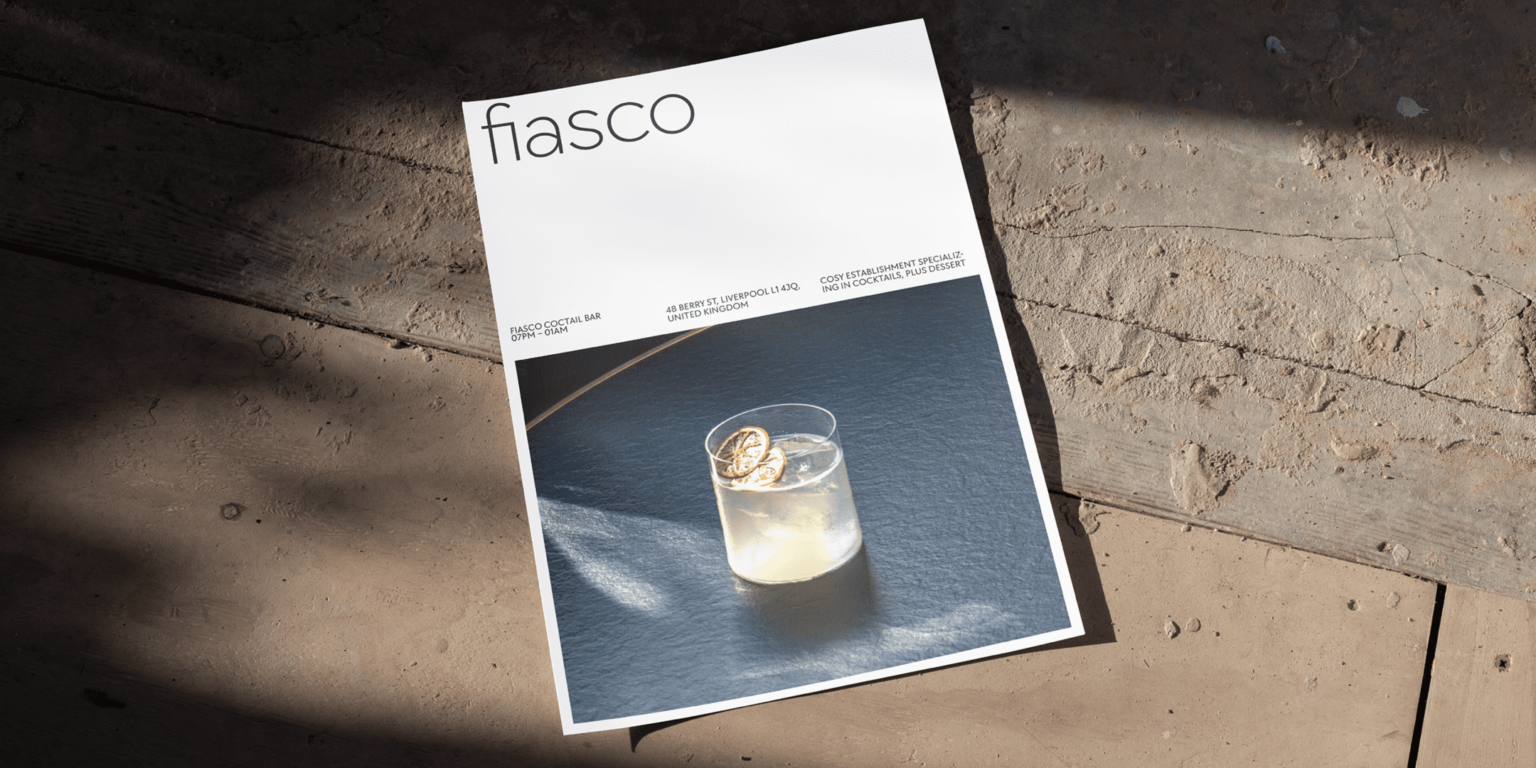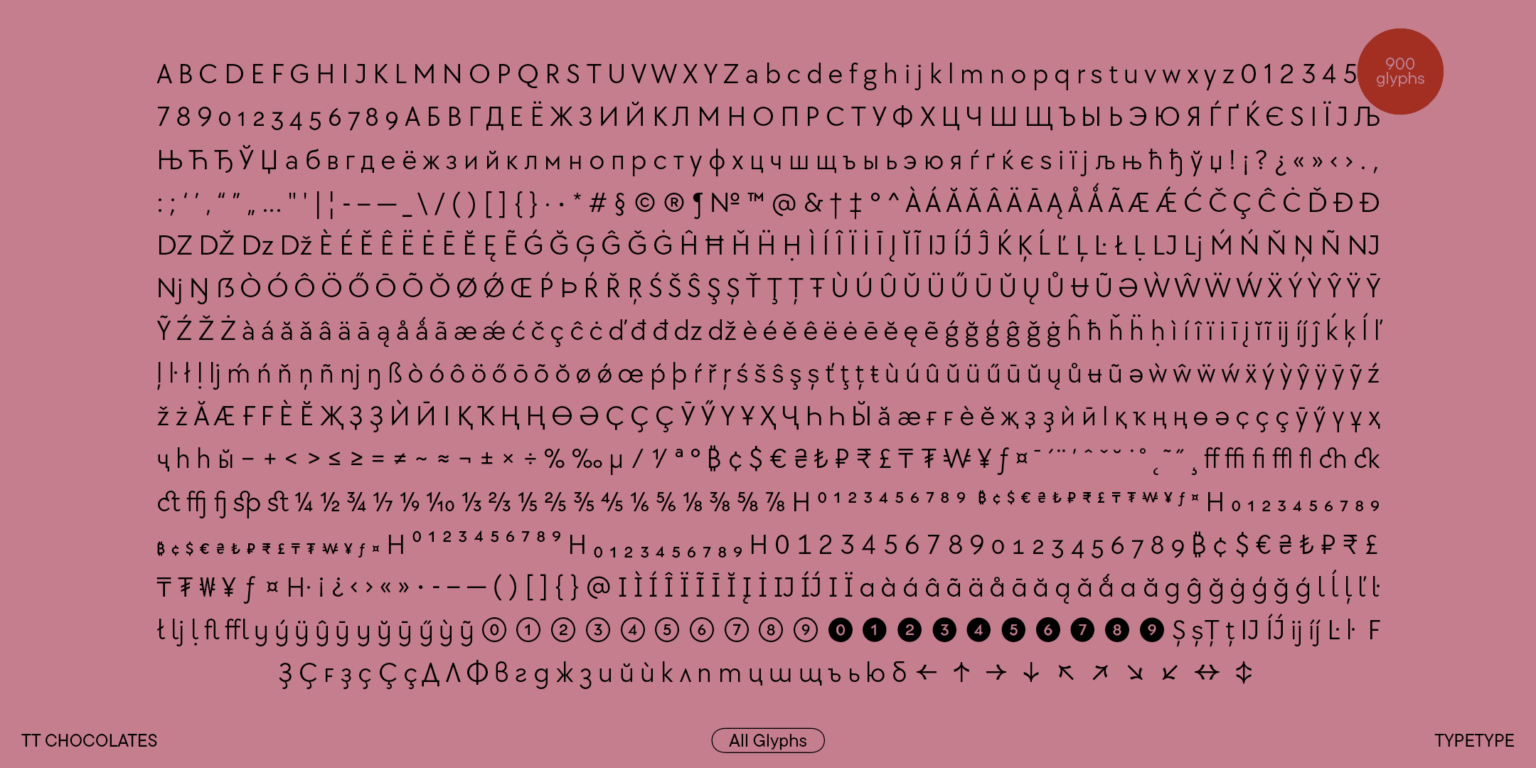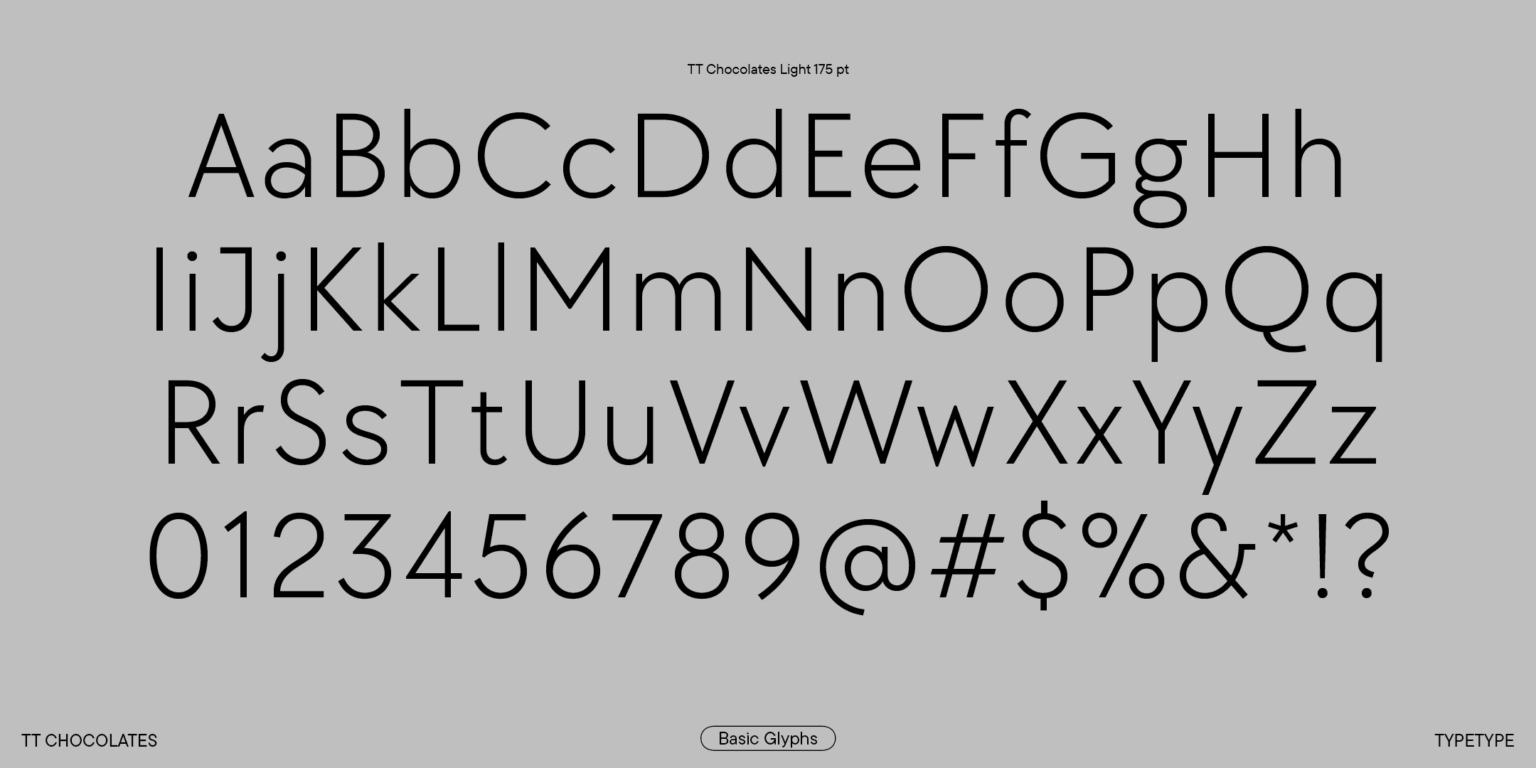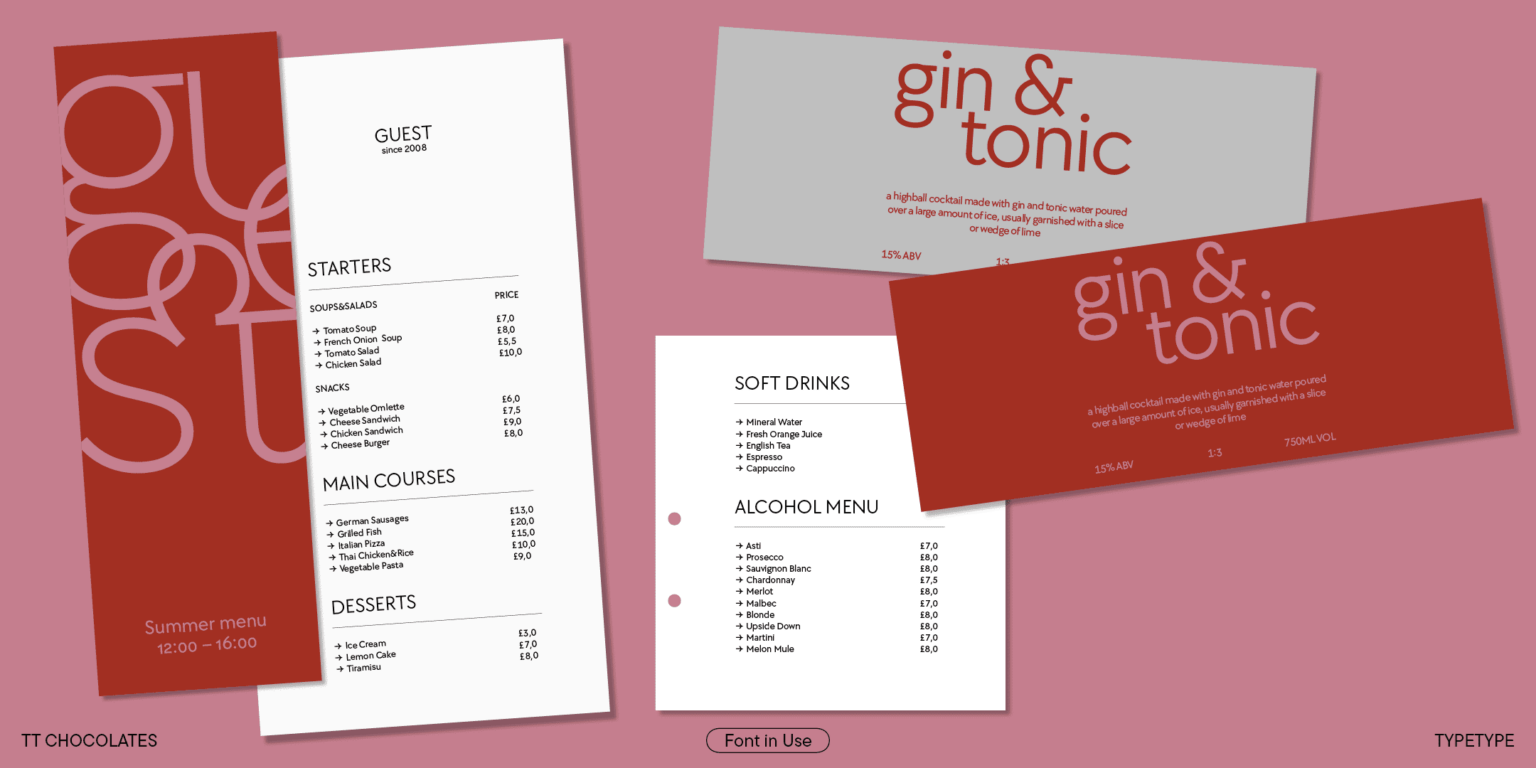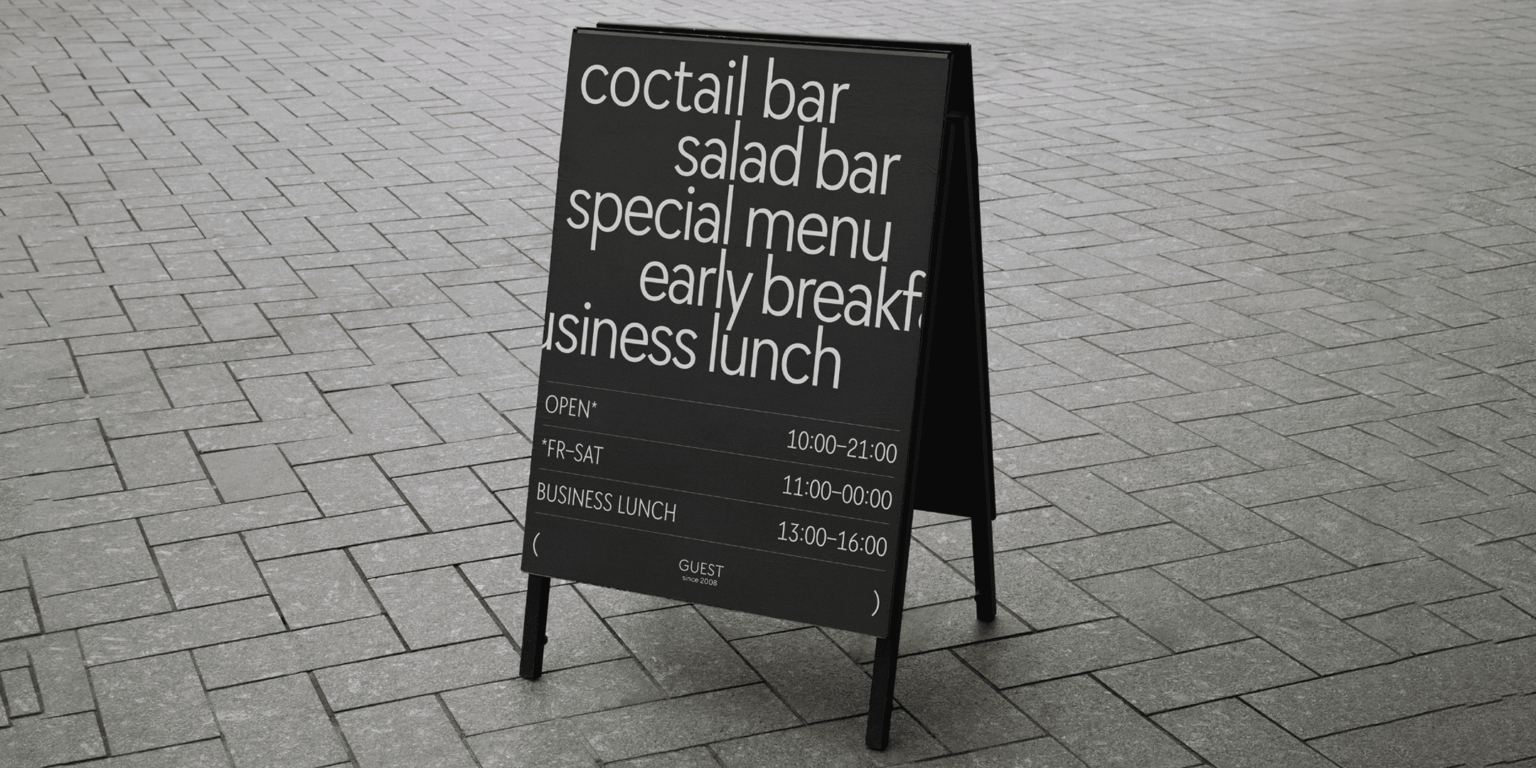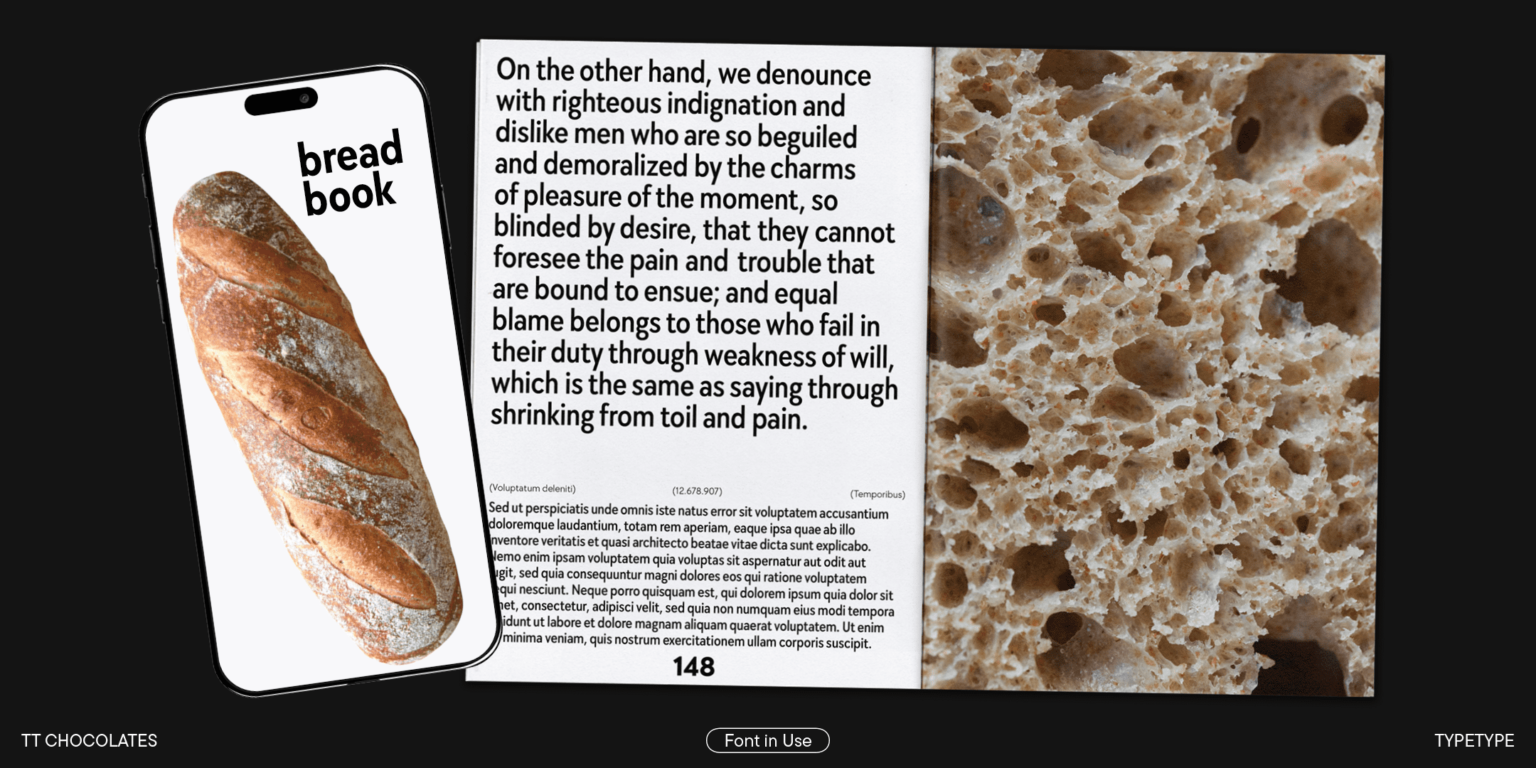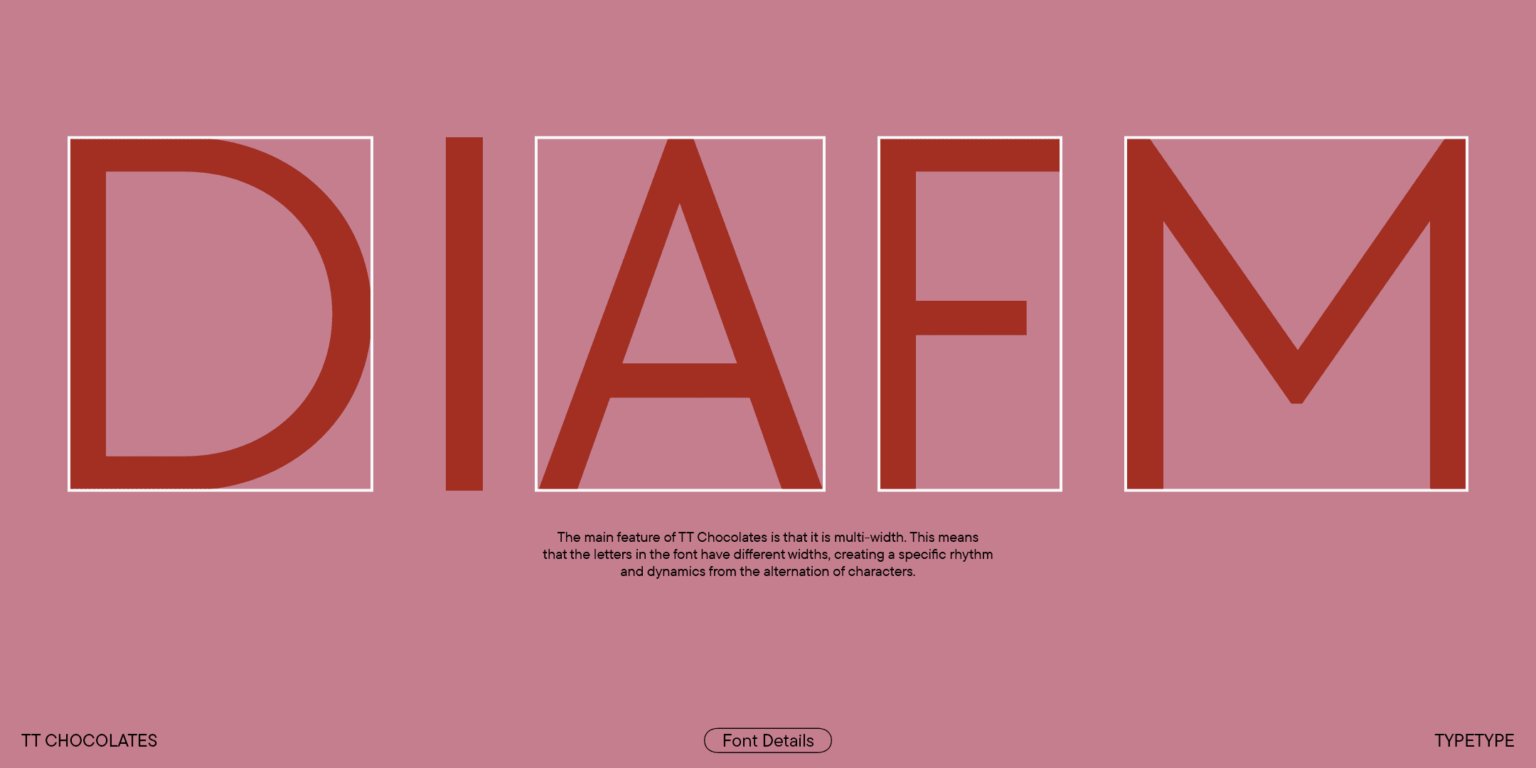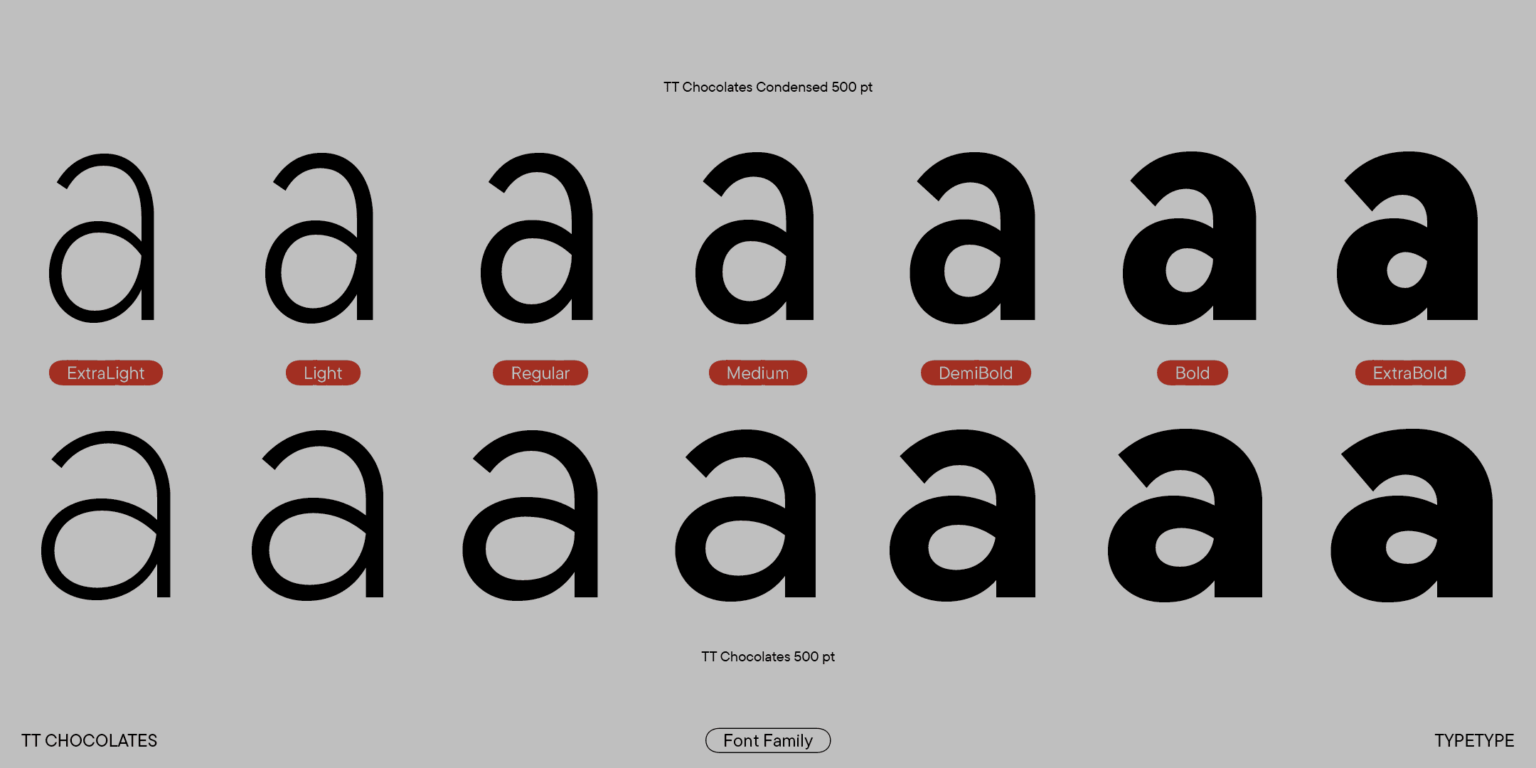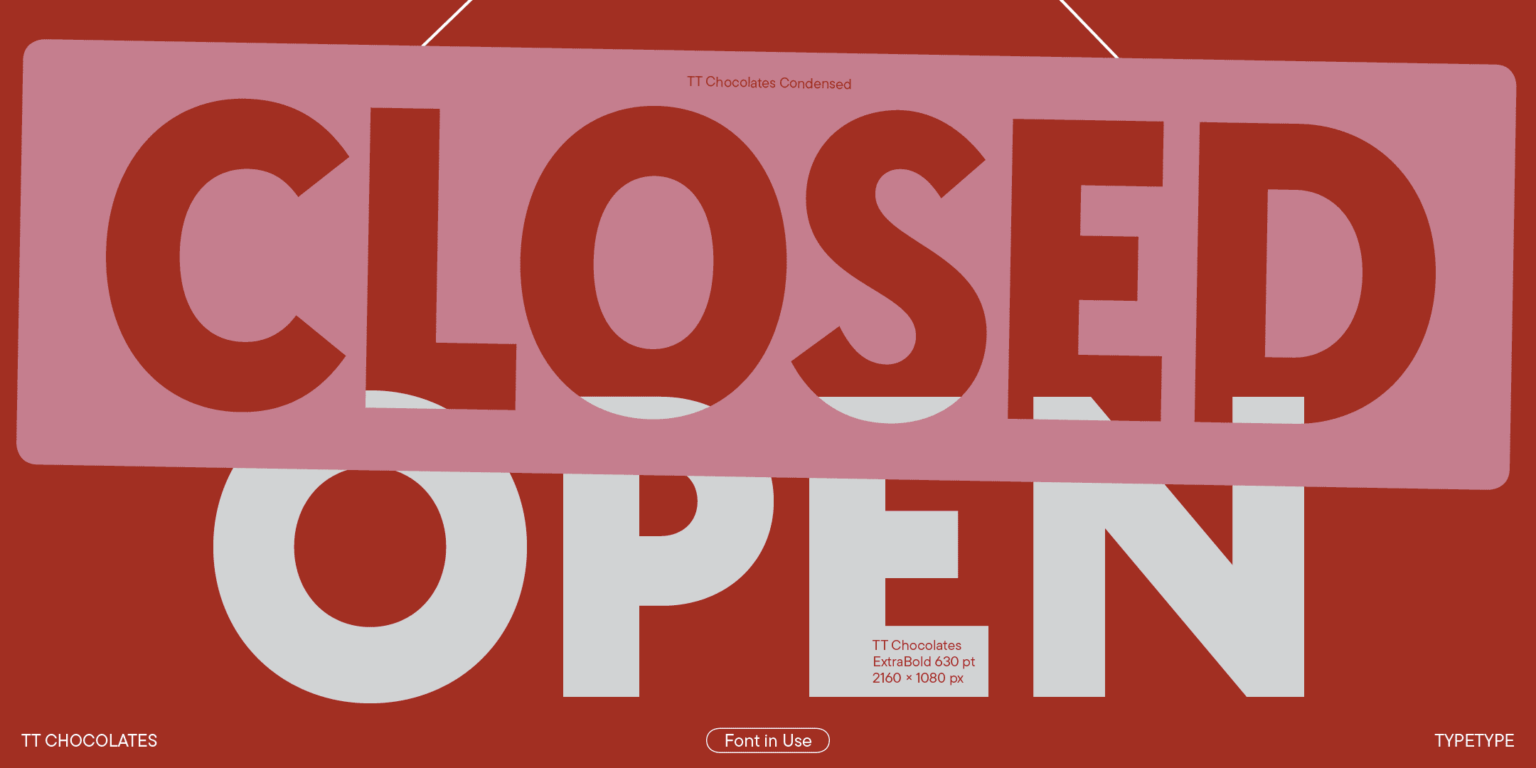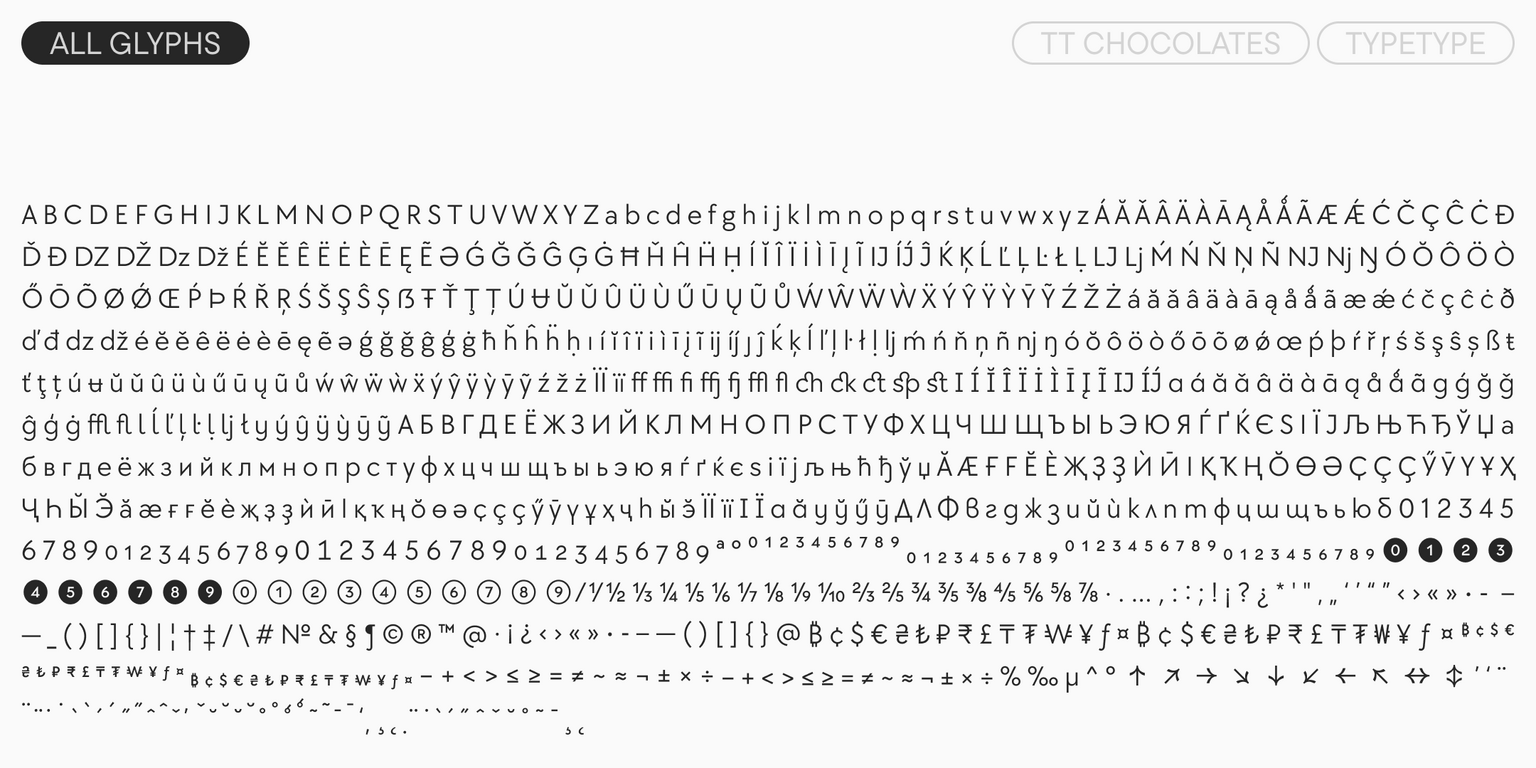
TT Chocolates
TT Chocolates is a refined humanist sans serif with friendly personality. It is particularly successful in hospitality and culinary brand applications.
The third comeback of the legendary TT Chocolates font family.
Our TT Chocolates font family has already earned a reputation among users as an elegant sans serif for stylish design. In 2023, we decided to redesign it completely following the information we gained a few years ago during our sans-serif market research. From the technical aspect, we refined the outlines and improved the font’s rhythm. We also added 35 languages based on the Cyrillic script and 16 languages based on the Latin script. TT Chocolate 3.0 now has 14 new Condensed font styles and a new variable font with three axes of variation: width, weight, and slant.